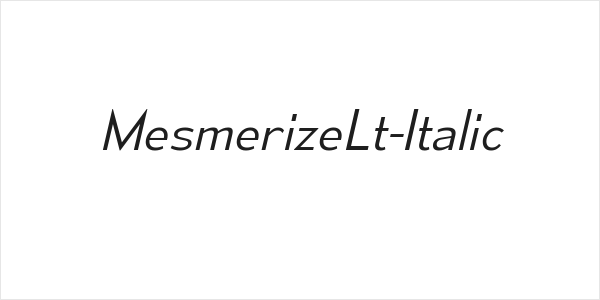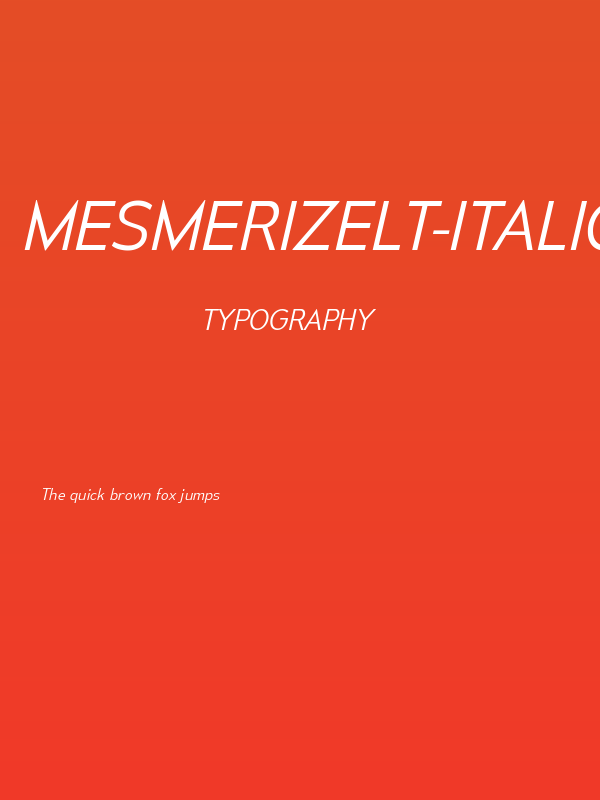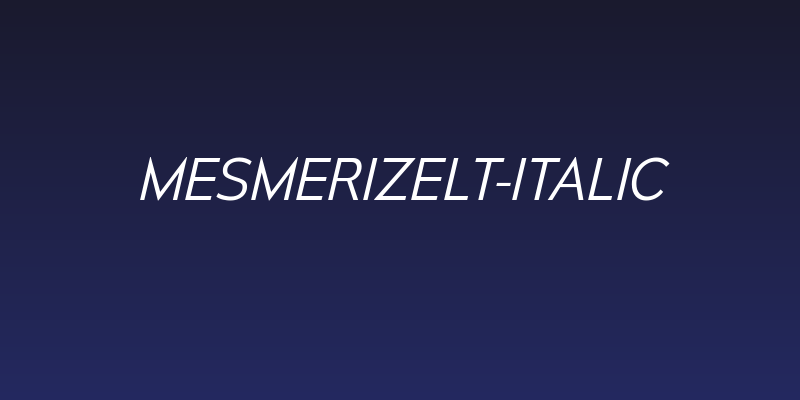
MesmerizeLt-Italic Font
MesmerizeLt-Italic Description
This font presents a sleek and modern design with a slight italic slant, giving it a dynamic and forward-moving appearance. The characters are clean and well-defined, with a uniform stroke width that maintains consistency across all letters and numbers. The uppercase letters are bold and commanding, while the lowercase letters offer a softer, more approachable feel. The numerals are clear and easy to read, making them suitable for various applications. Special characters are included, providing versatility for different uses. Overall, this font combines elegance with readability, making it suitable for both digital and print media.
| Proposed Projects | Ideal for branding, advertising, and editorial design projects where a modern and dynamic look is desired. |